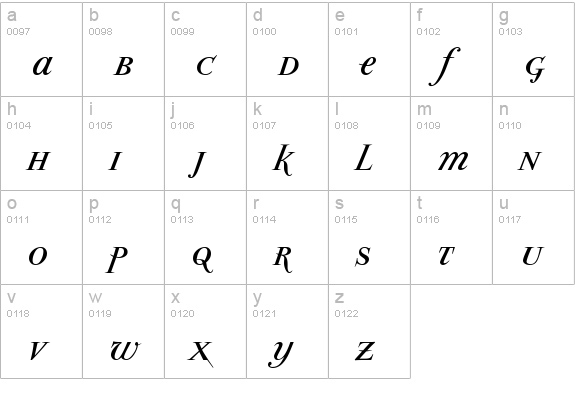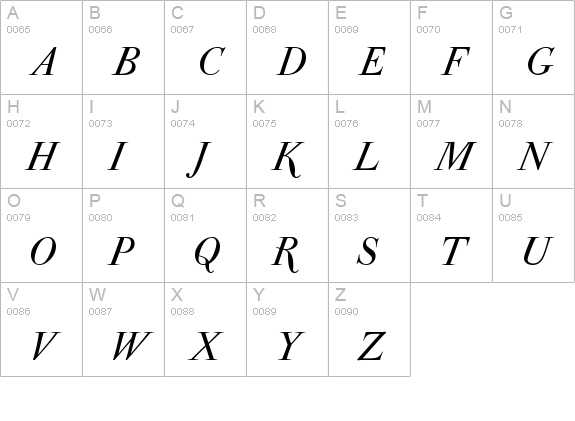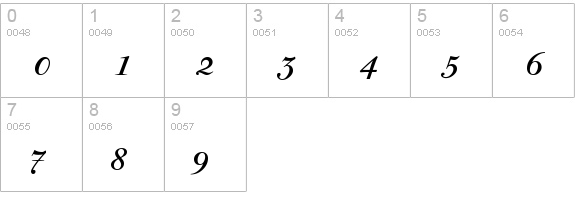
ParmaPetitSCItalic Font Details
ParmaPetitSCItalic is a stunning and elegant font that adds a touch of sophistication to any design project. Its delicate and graceful curves make it perfect for adding a touch of class to invitations, logos, and branding materials. This italic variant of the ParmaPetit font family brings a sense of movement and style, making it ideal for fashion and beauty-related designs. With its slim and refined letterforms, ParmaPetitSCItalic exudes a sense of elegance and refinement. Each letter is meticulously crafted, ensuring that every character flows seamlessly into the next, creating a harmonious and visually appealing composition. This font is not only visually stunning, but it is also incredibly versatile. Whether you're designing a wedding invitation or a high-end fashion magazine, ParmaPetitSCItalic will effortlessly elevate your design to a whole new level of sophistication. And the best part? ParmaPetitSCItalic is freely available to download at FontsMarket.com. This means that you can enhance your designs with this beautiful font without having to worry about any additional costs. Its availability for free makes it accessible to designers of all skill levels, allowing them to create stunning and professional-looking designs without breaking the bank. So why wait? Download ParmaPetitSCItalic today from FontsMarket.com and let your creativity soar. Whether you're a professional designer or a hobbyist, this font will surely become an invaluable asset in your design toolkit. Embrace elegance and style with ParmaPetitSCItalic and watch your designs come to life.